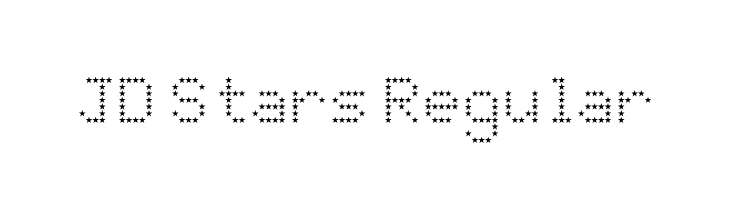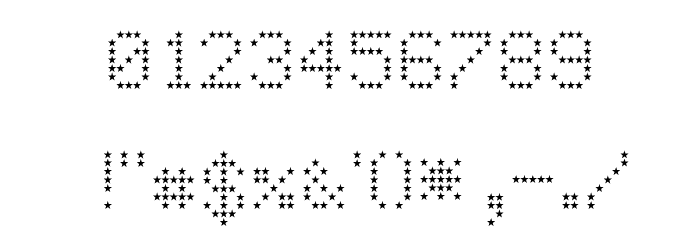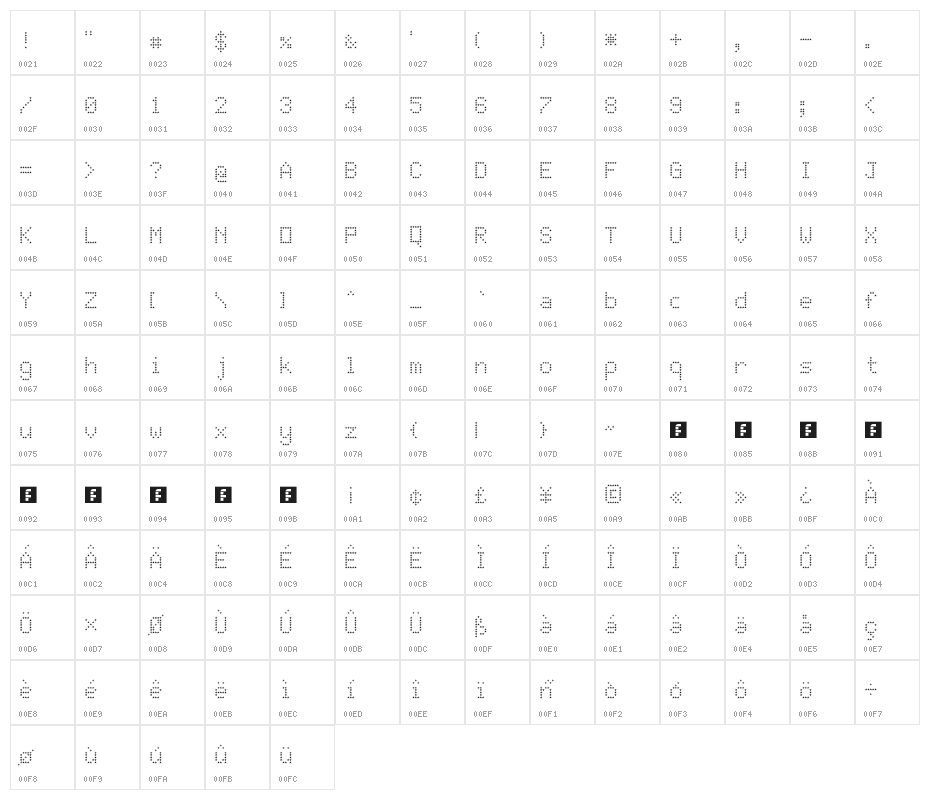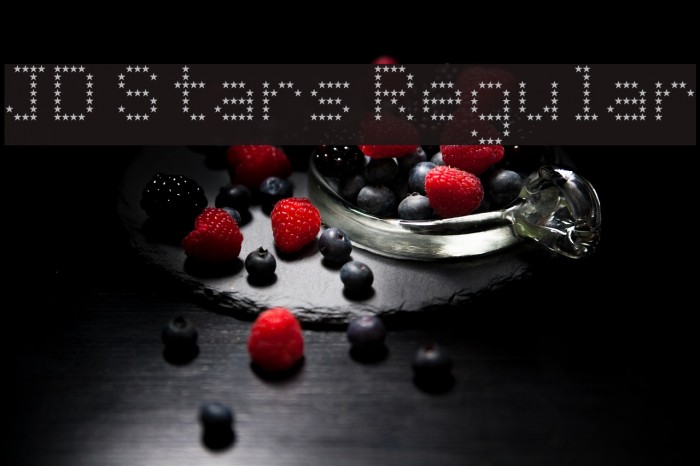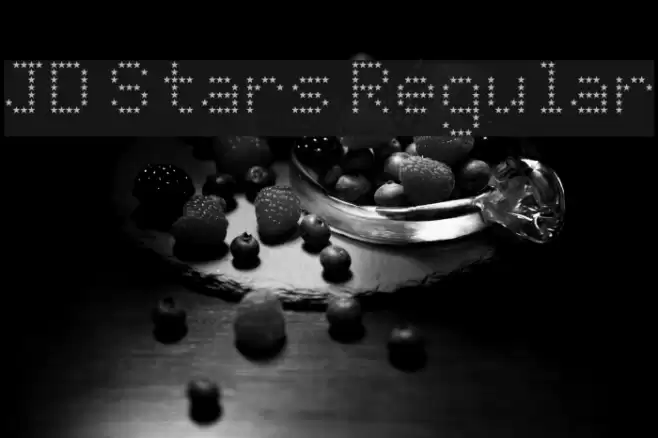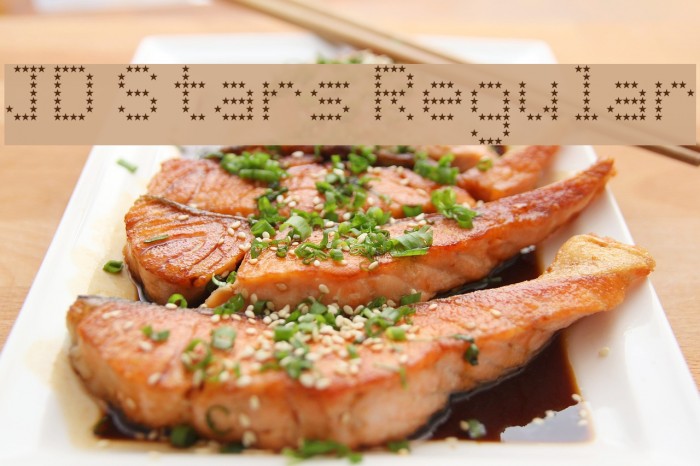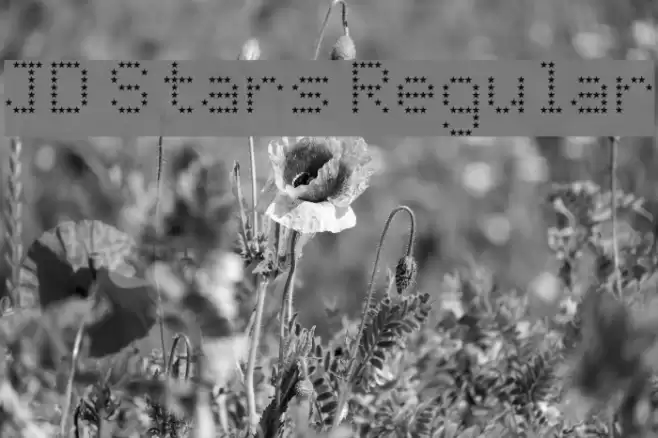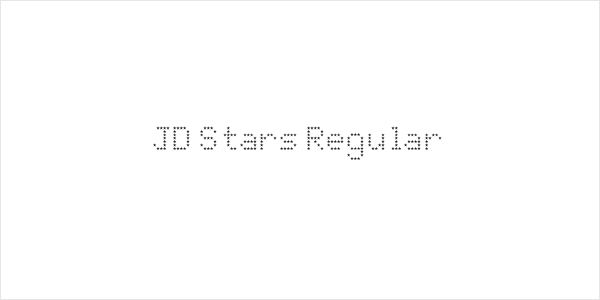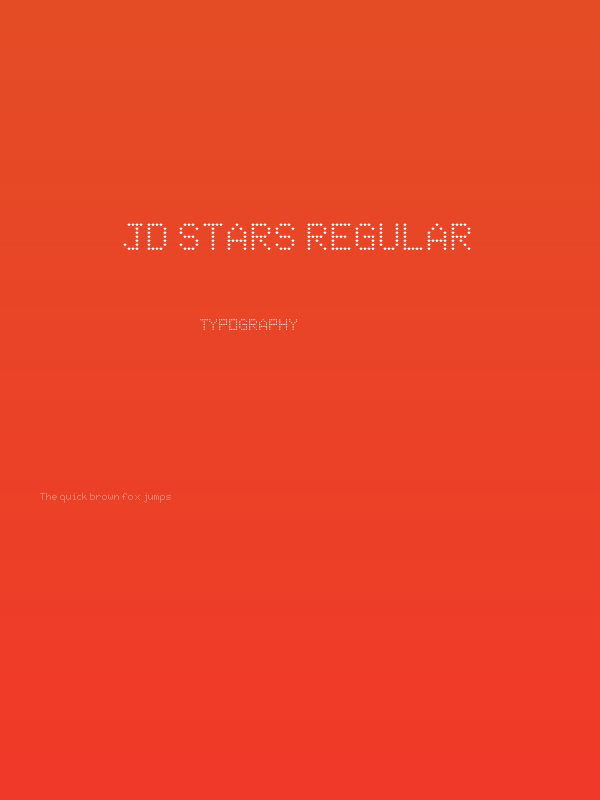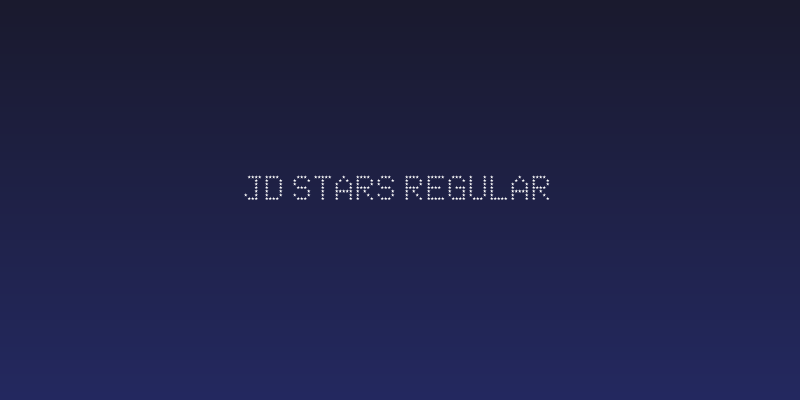
JD Stars Regular Font
JD Stars Regular Description
This font features a unique and playful design where each character is composed of small star shapes. The stars are evenly spaced to form the outlines of letters and numbers, creating a whimsical and decorative appearance. The font maintains a consistent structure across uppercase, lowercase, and numerical characters, ensuring readability while adding a touch of creativity. The special characters also follow this star pattern, making the font suitable for festive or themed projects. Its distinct style makes it stand out, ideal for capturing attention in various design contexts.
| Use Case | Headlines, Logos, Themed designs |
| Proposed Projects | Ideal for party invitations, children's book covers, festive banners, and creative branding projects. |